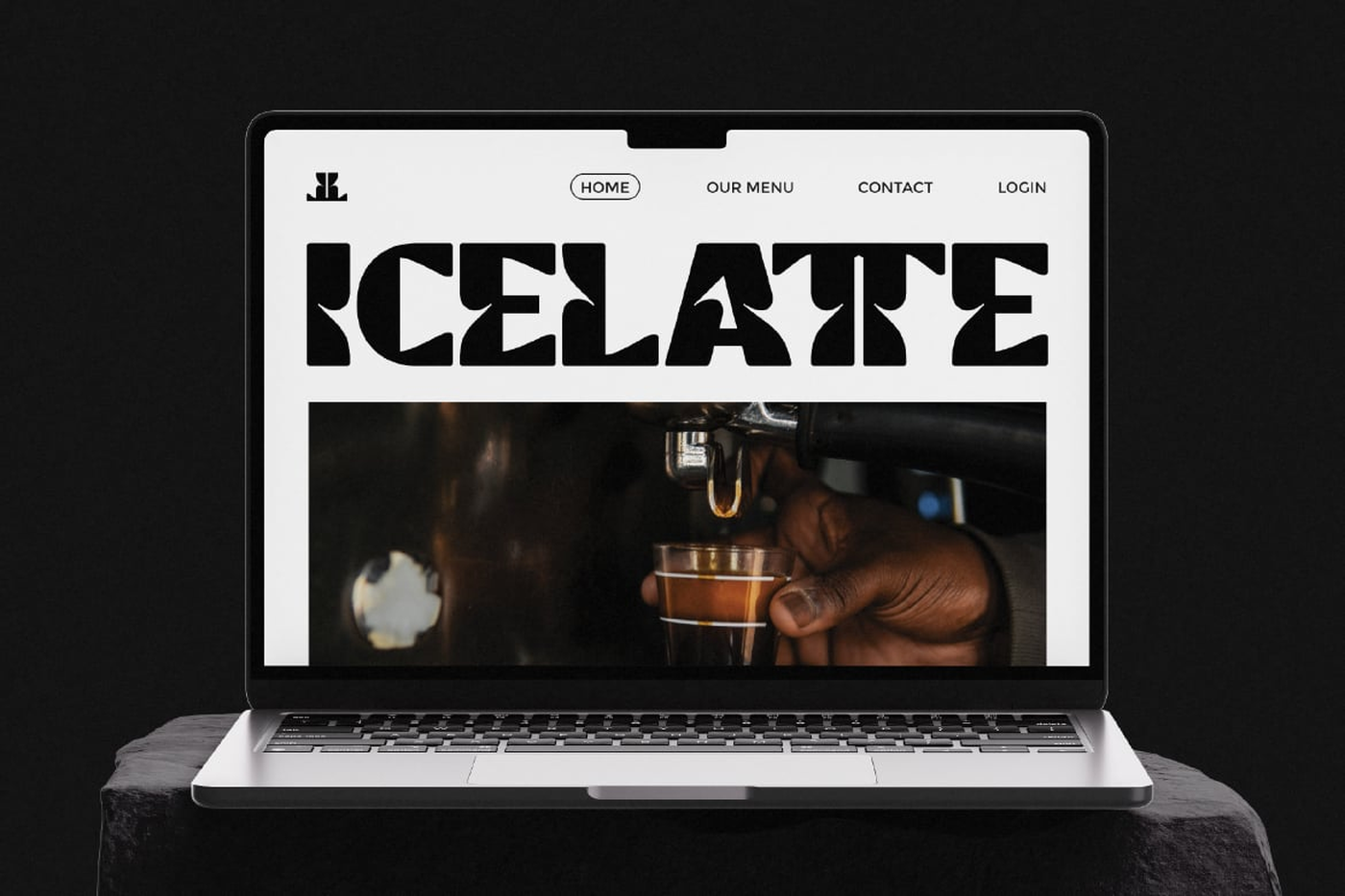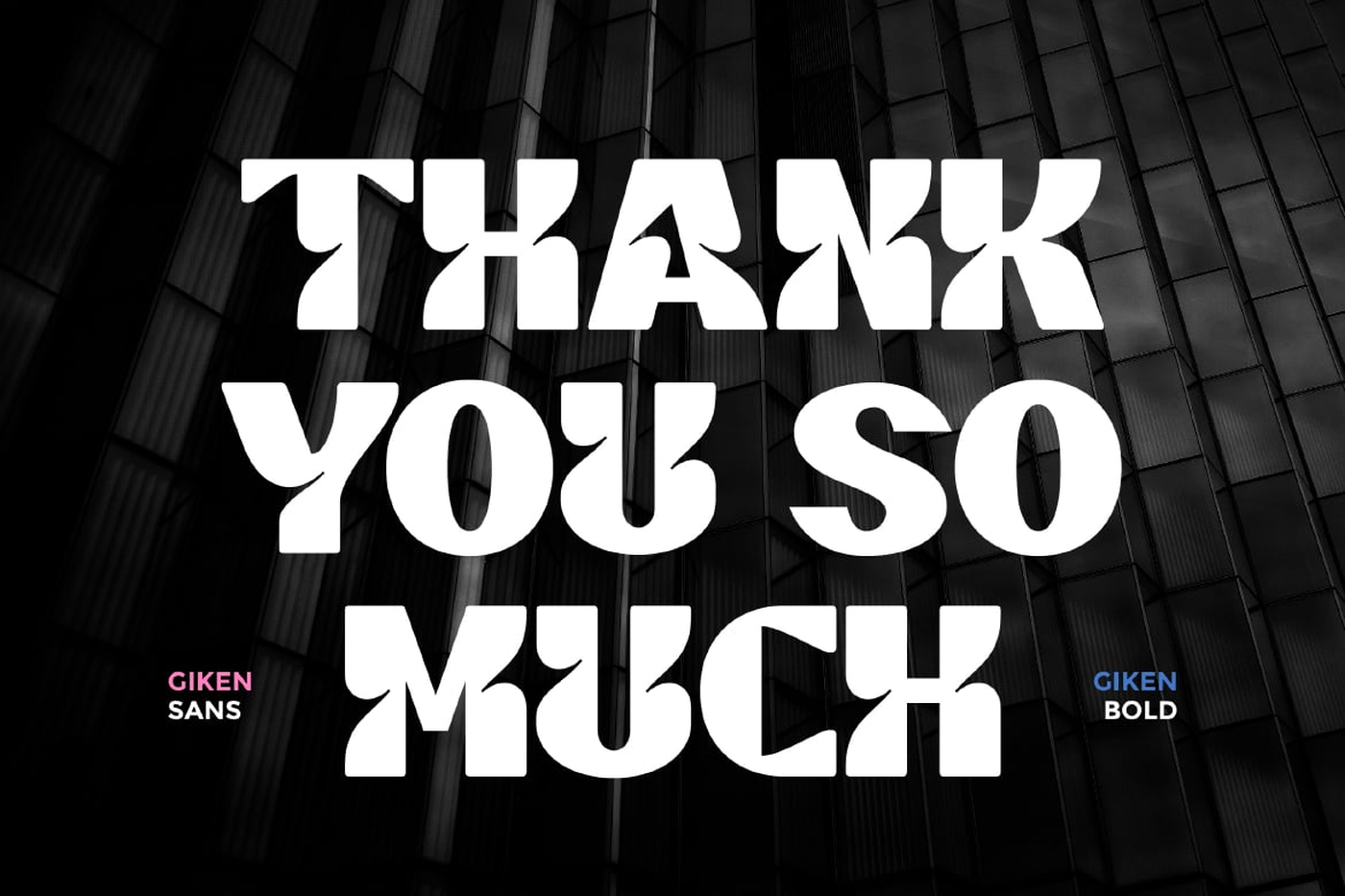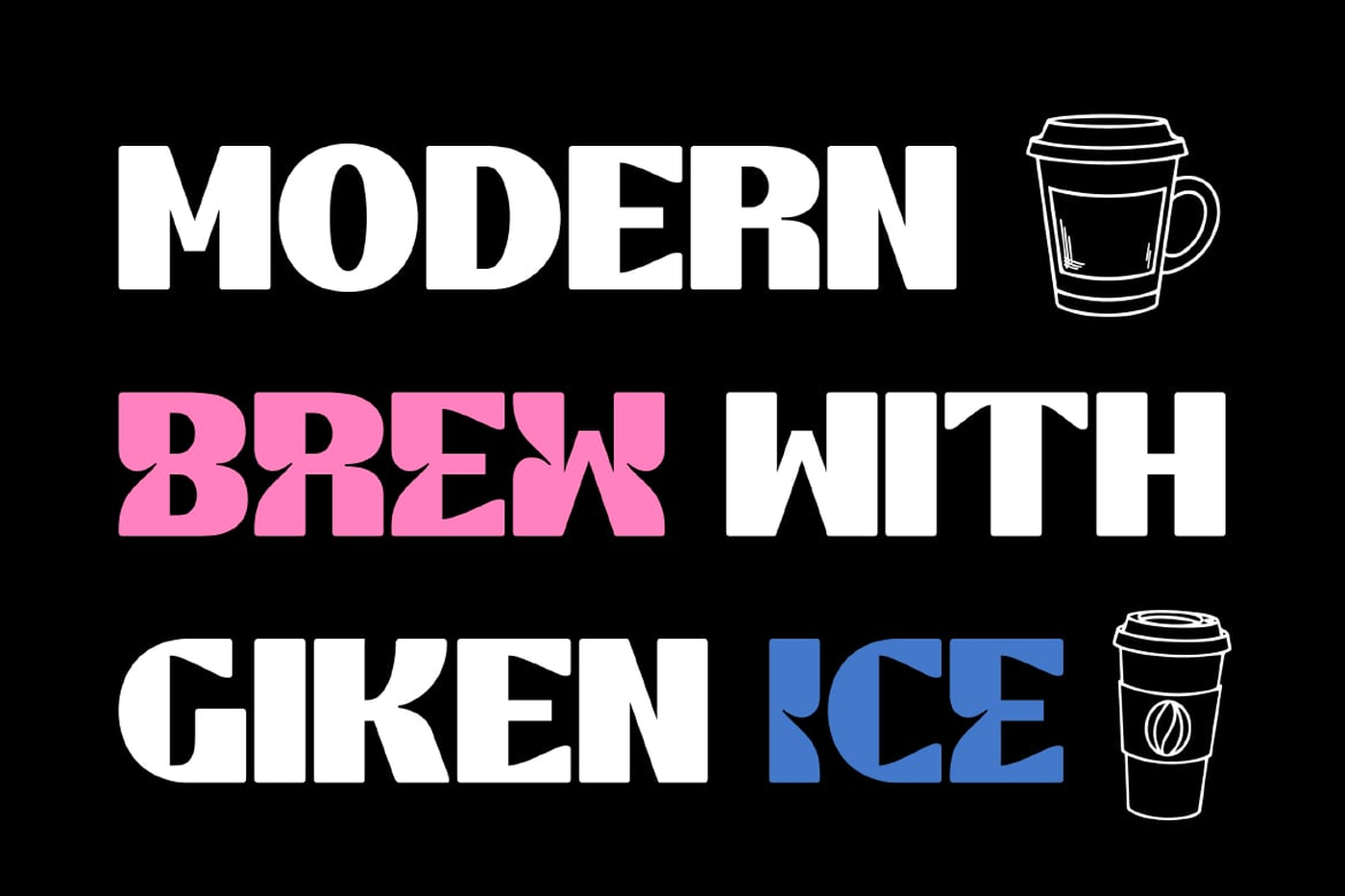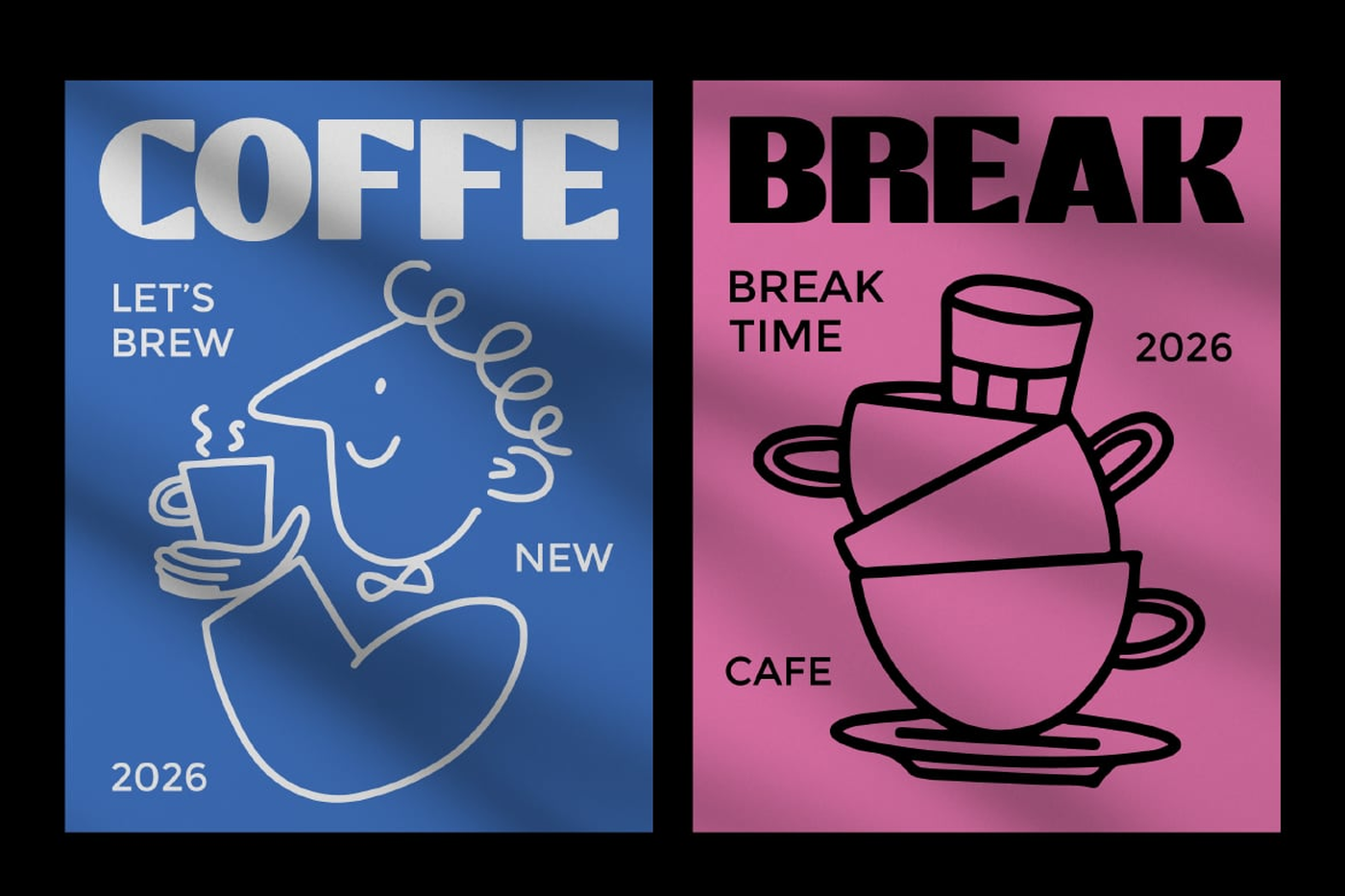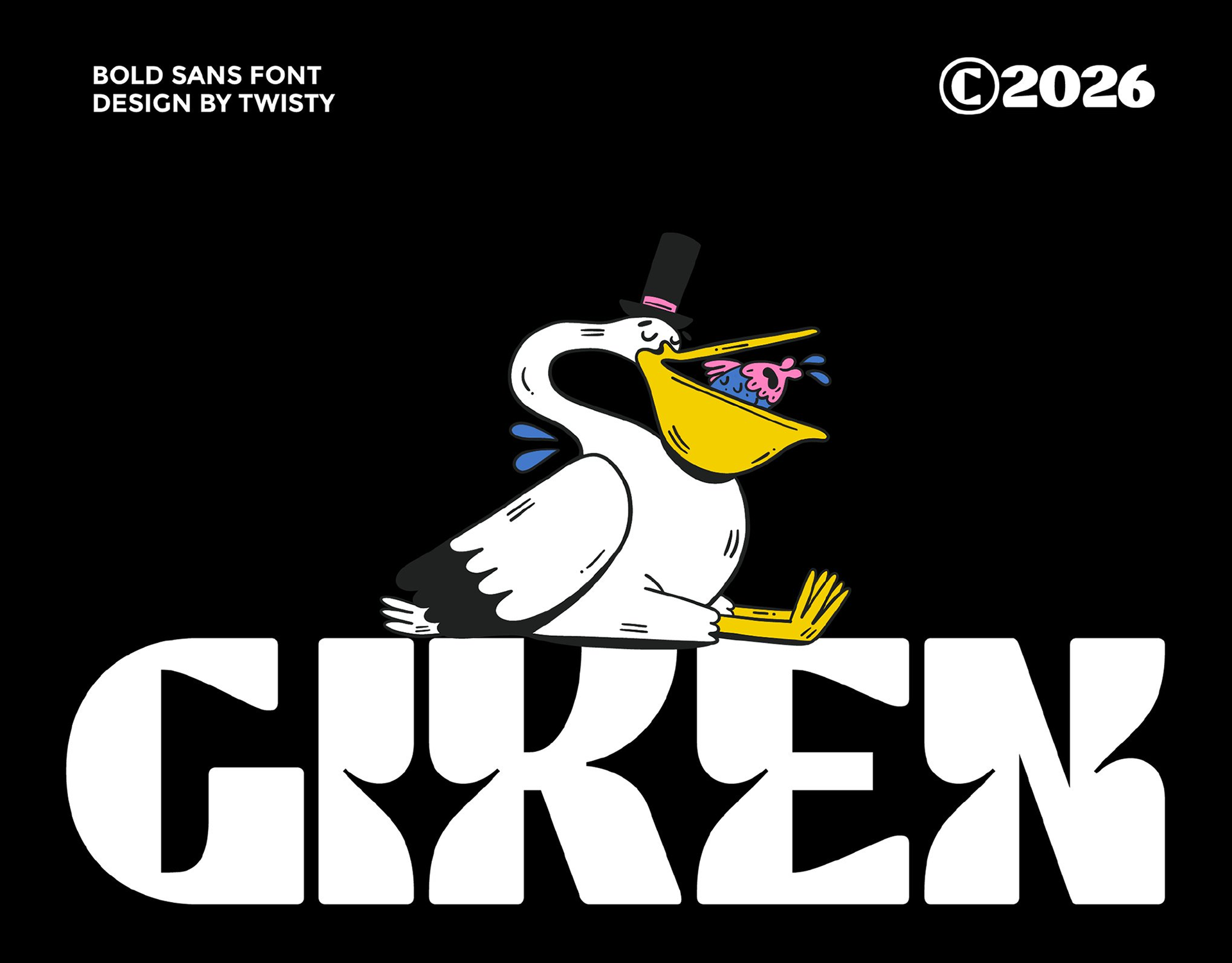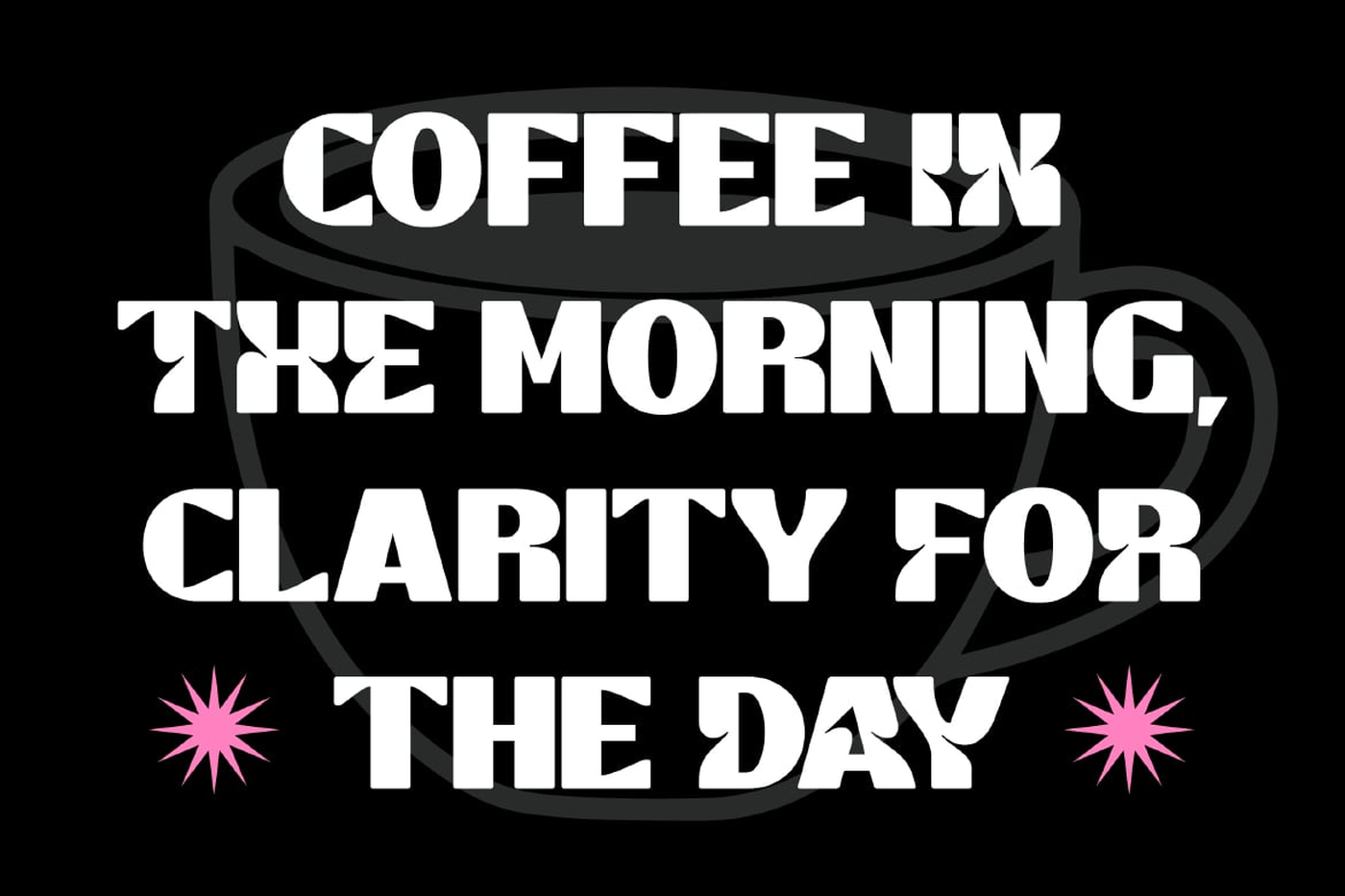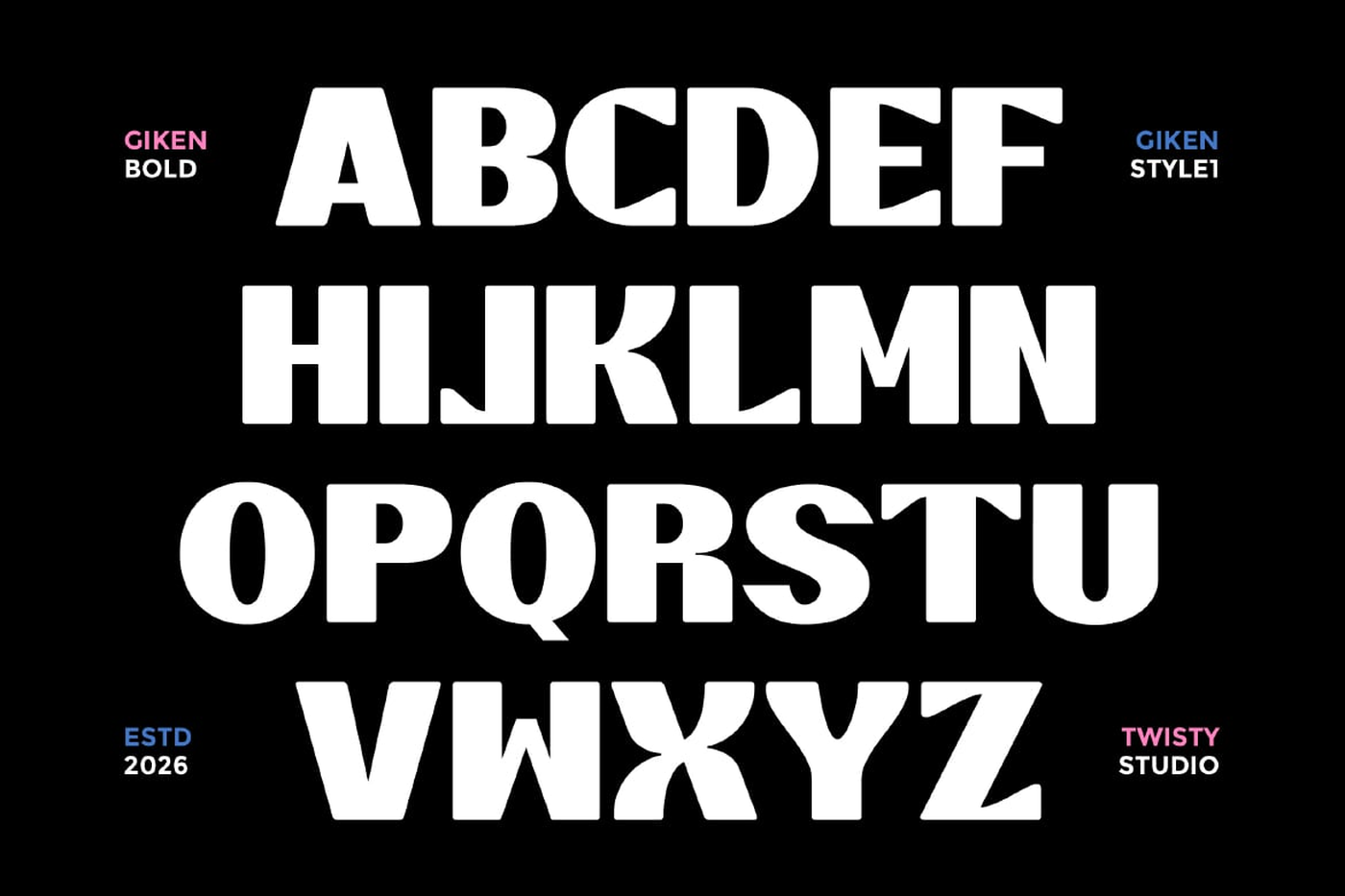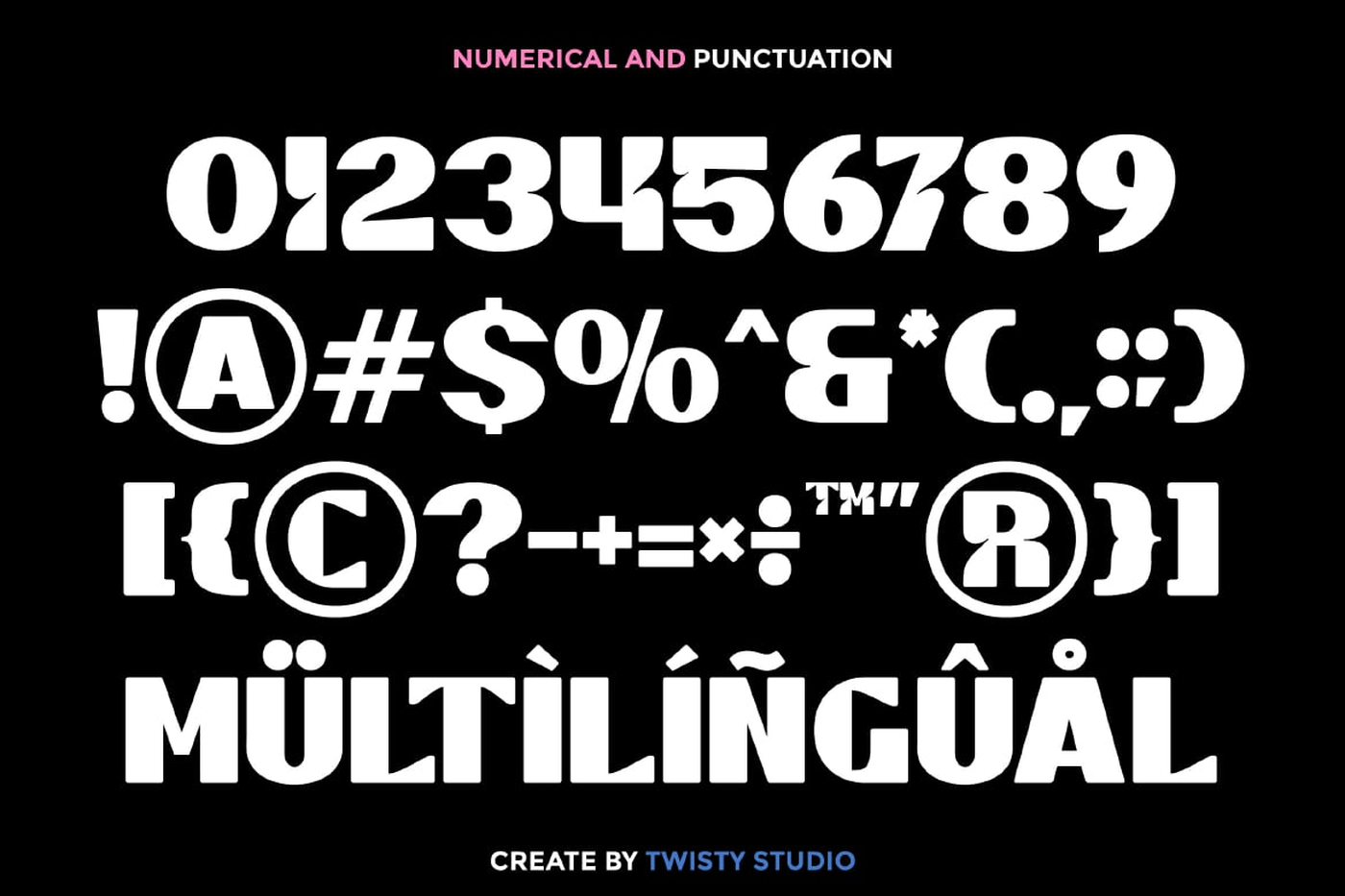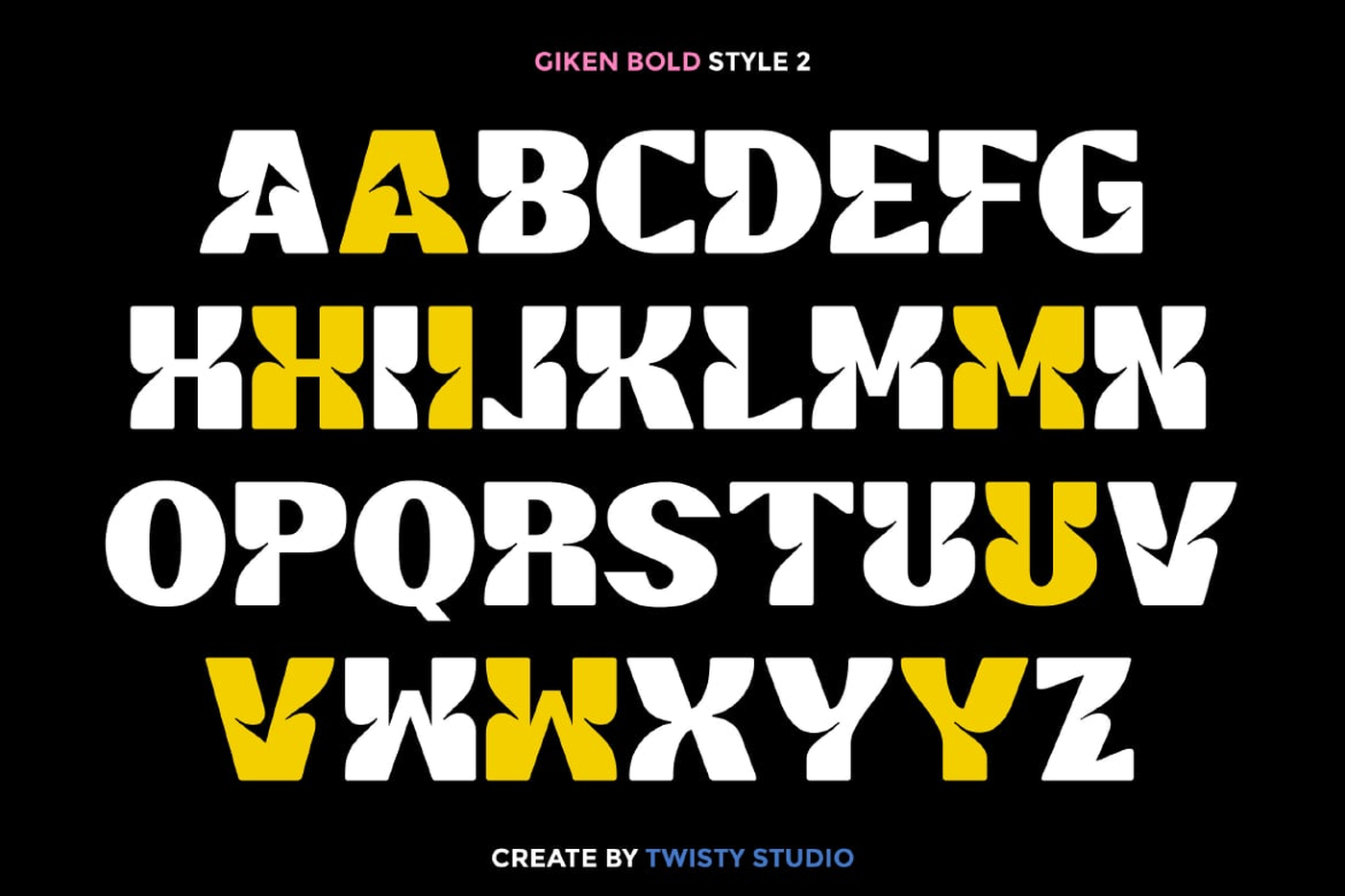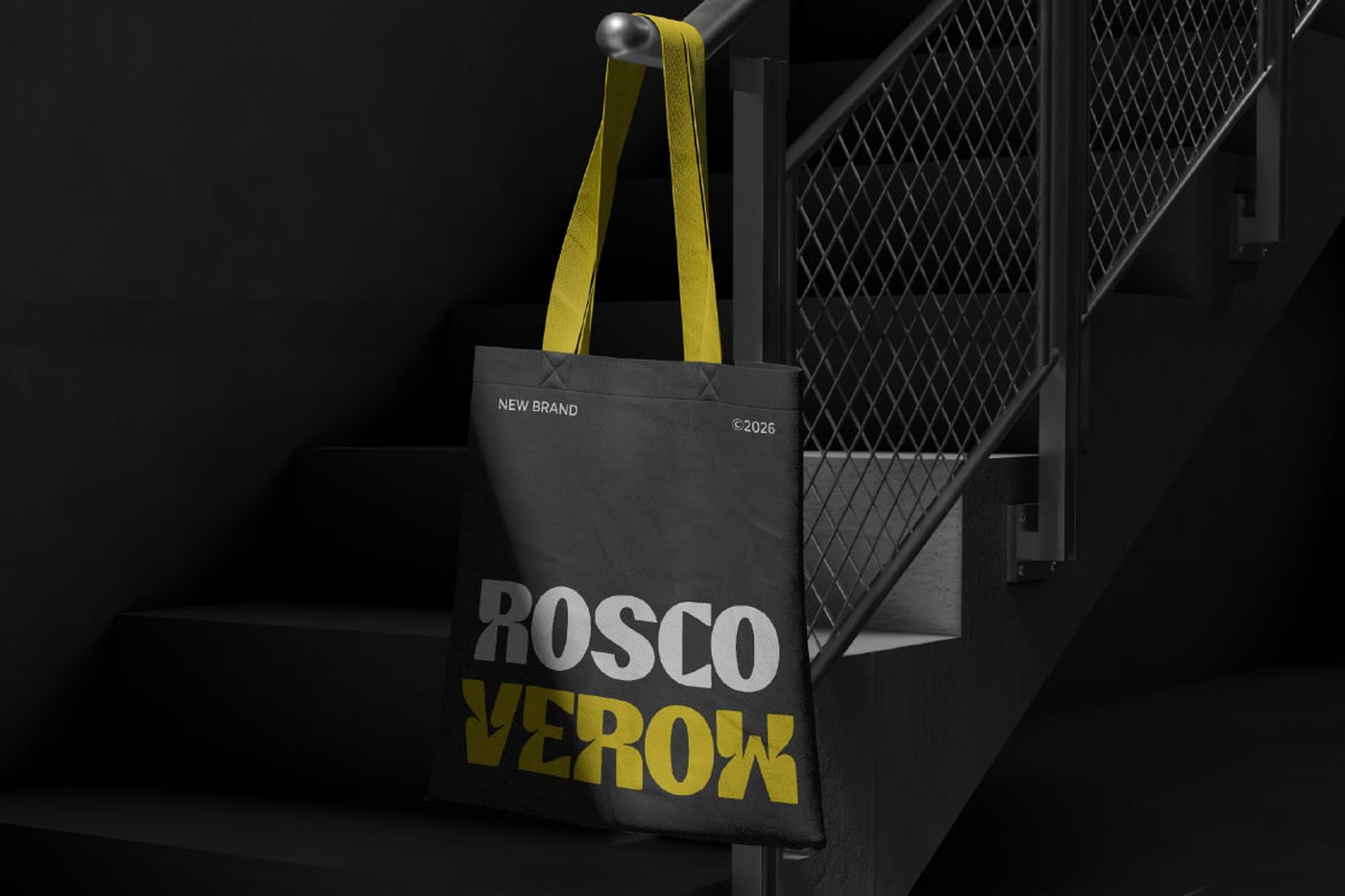
Giken - Bold Sans Serif Font
Giken is a bold sans serif font built with strong geometry and a clean, modern attitude. Its solid strokes and balanced proportions create a striking visual presence, making it ideal for designs that need clarity, confidence, and impact. The simplicity of its form keeps everything sharp and professional while still feeling contemporary and bold.